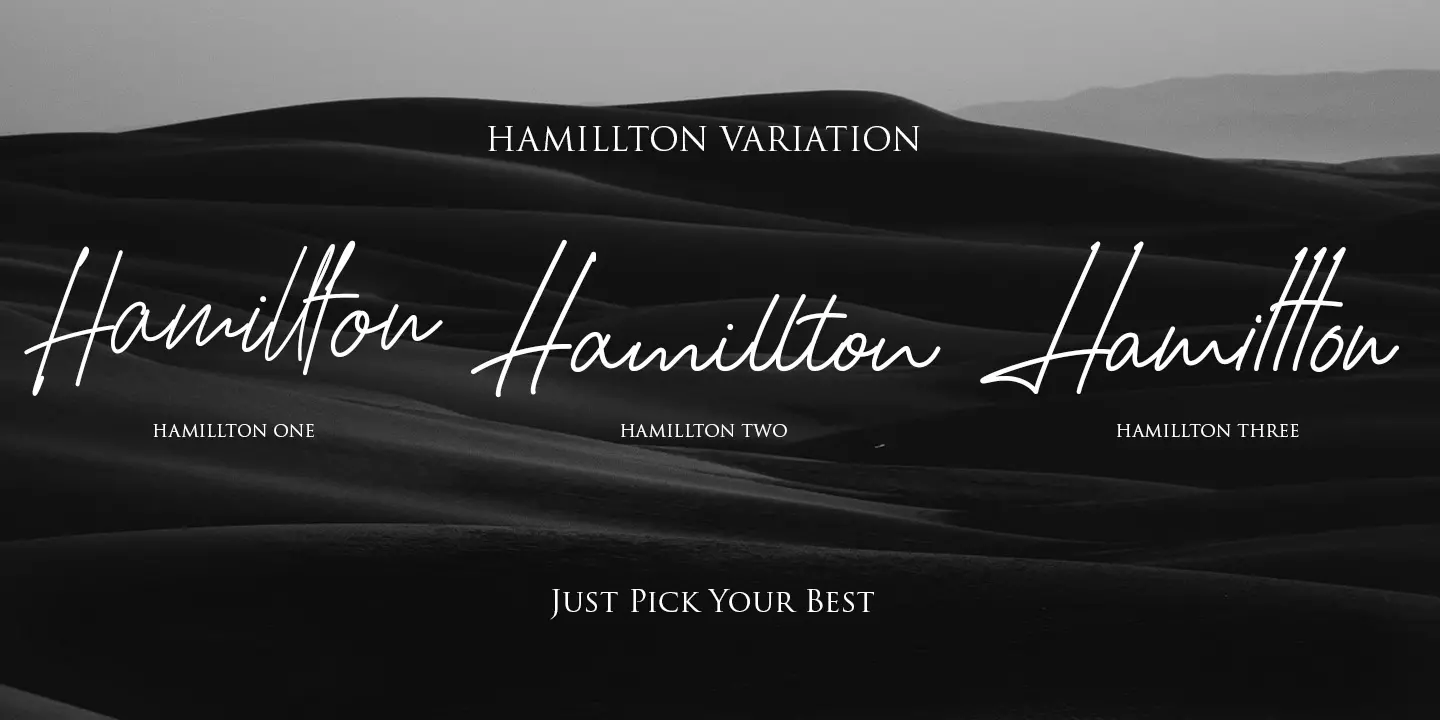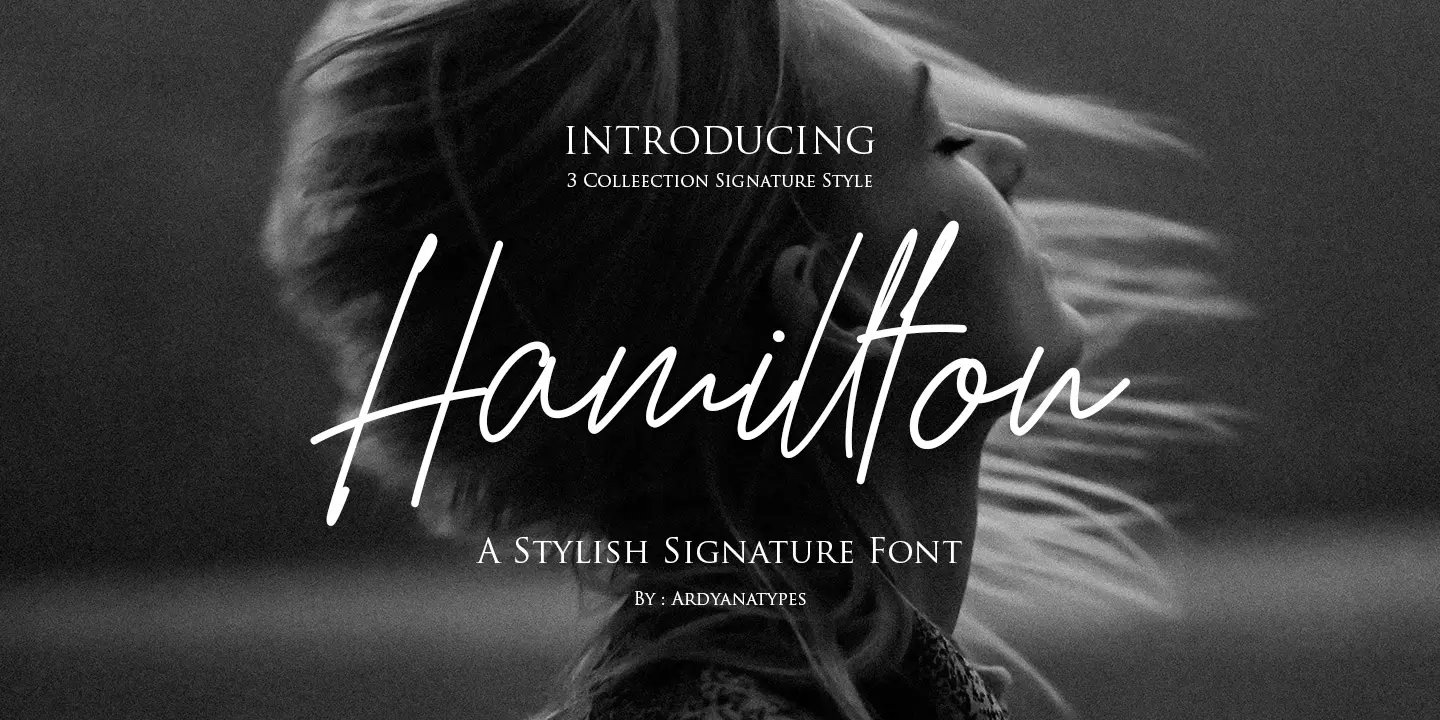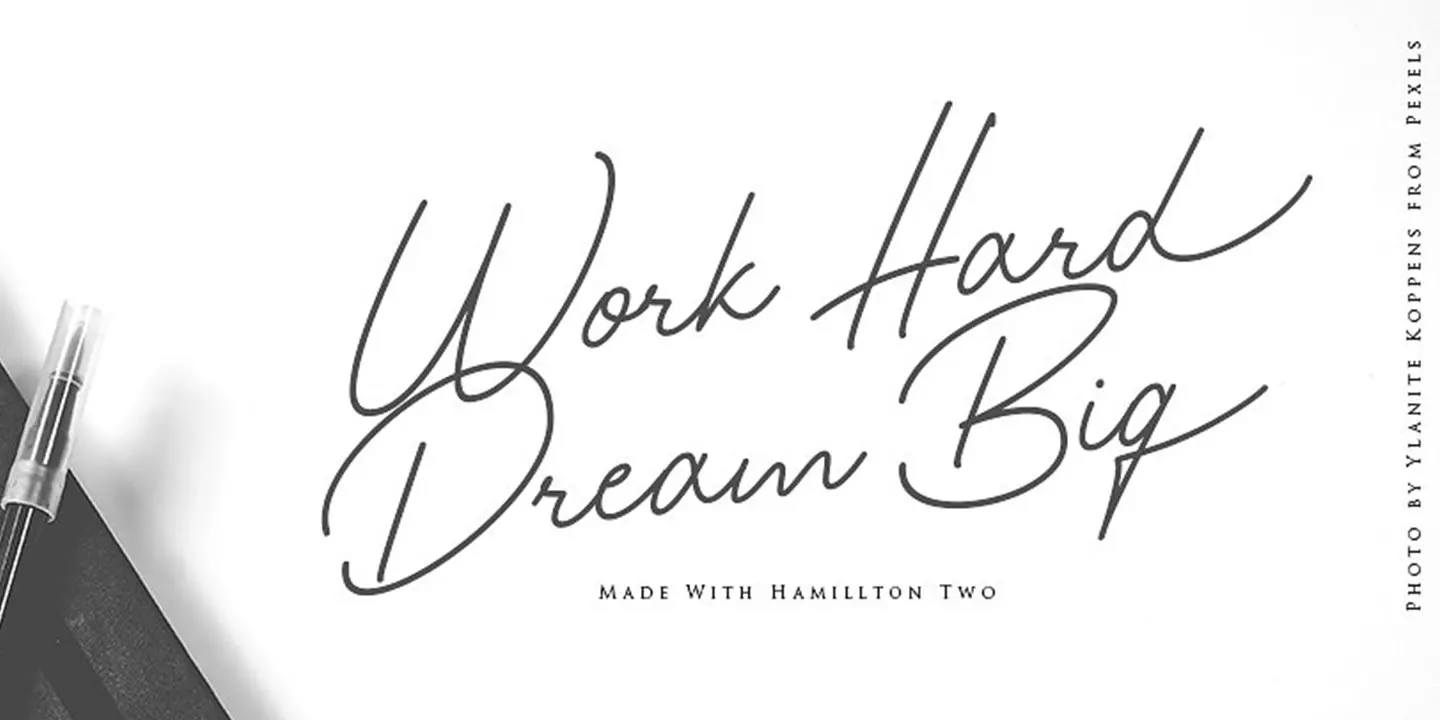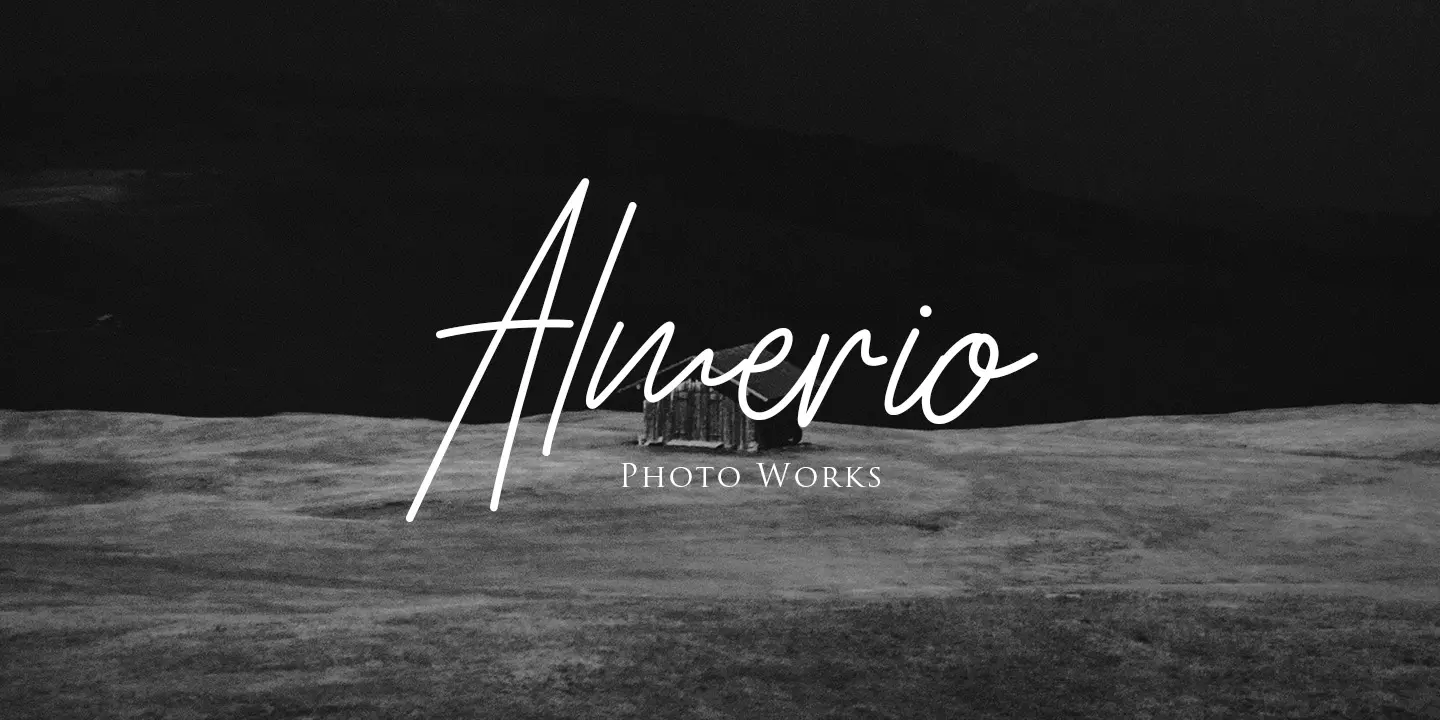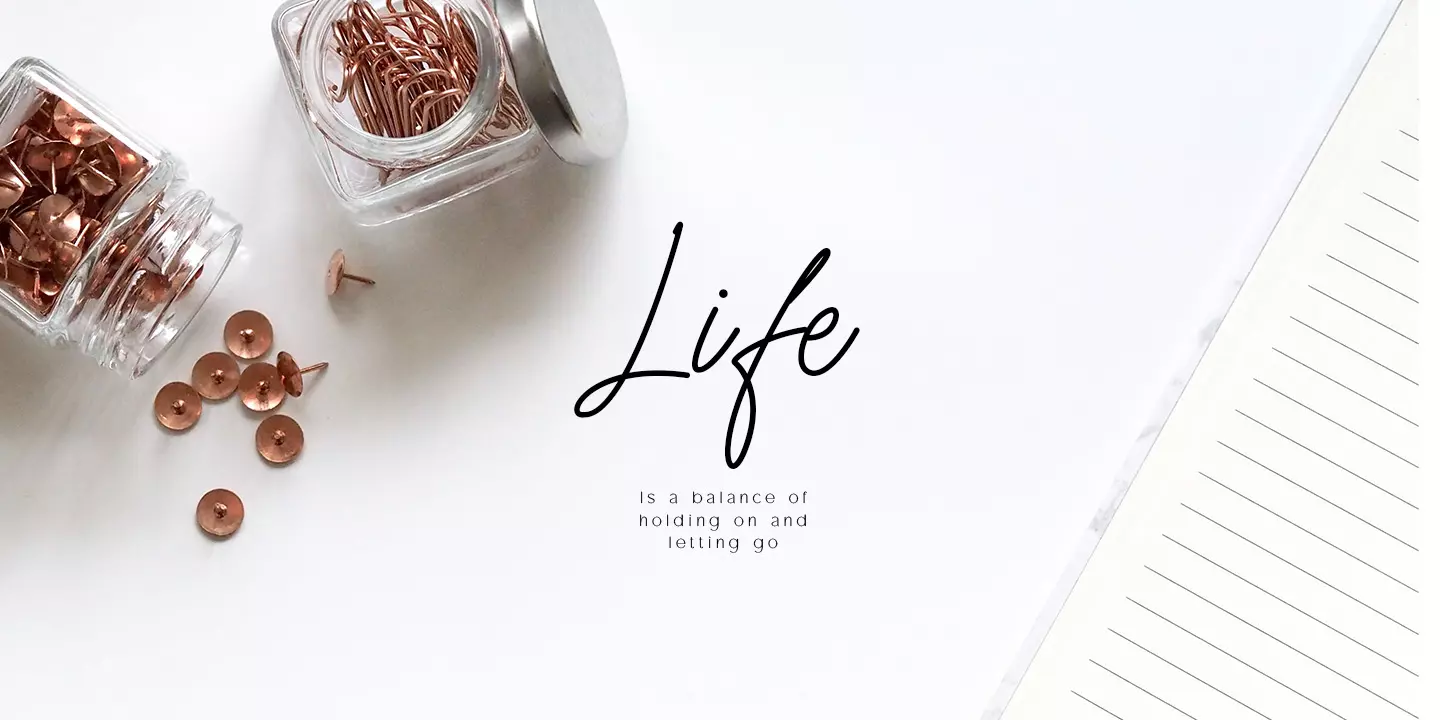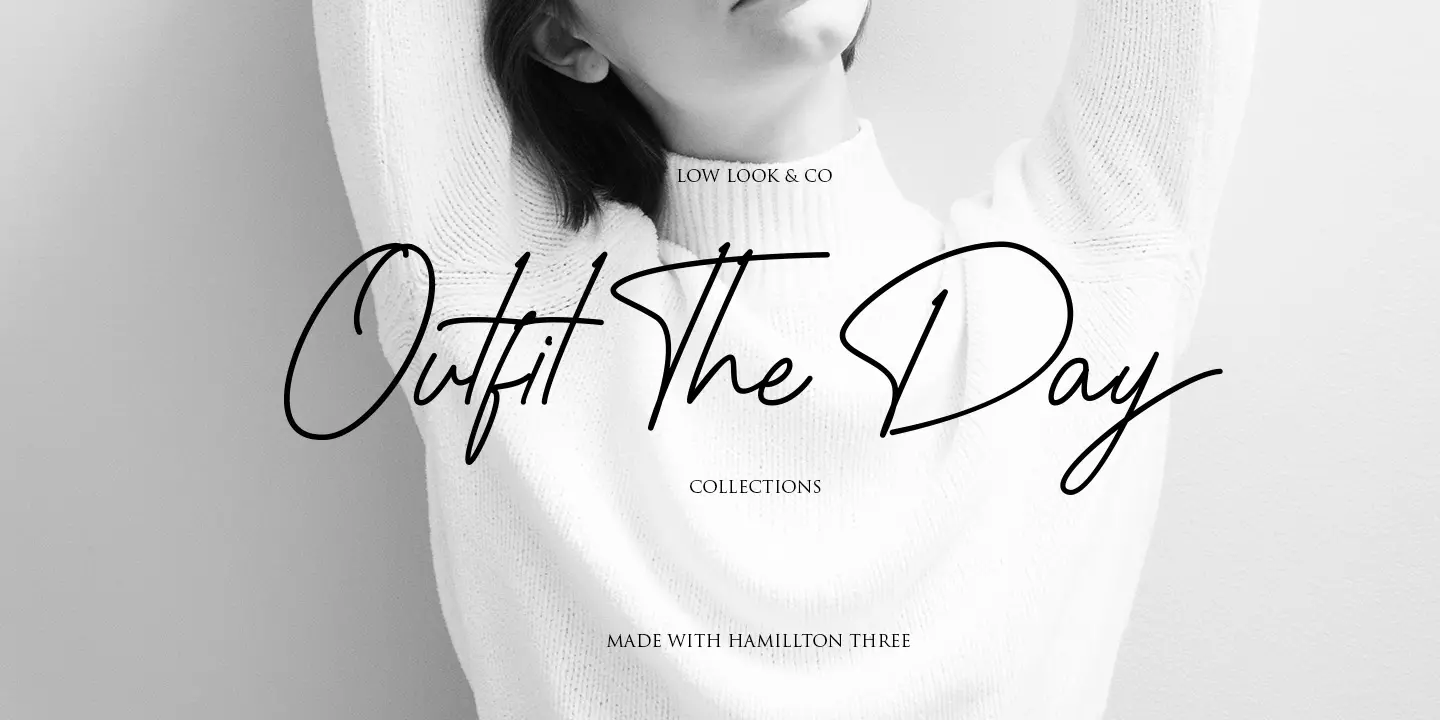
HamilltonScript
This is Hamillton made with simple and elegant hand writting, Hamillton has 3 variants for you to use, which each variant has a different type for you to use, equipped with alternative opentype features, initial and final forms, ligatures. We keep this font look elegant, classy, easy to read, stylish, memorable, and easy to use. Hamillton is the perfect choice for watermarks on photography, logo design or signature, quotes, album covers, business cards, and many other design projects. From business cards to photo watermarks, Hamillton comes to make your designs more classy and elegant.
• att att
• alt alt
• ath ath
• ah ah
• ch ch
• cl cl
• aa aa
• bb bb
• cc cc
• dd dd
• ee ee
• gg gg
• hh hh
• ii ii
• jj jj
• kk kk
• oo oo